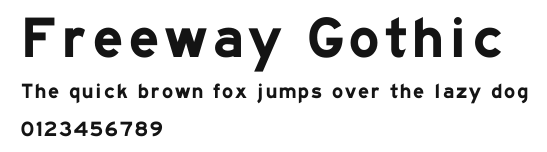
Freeway Gothic.ttf is a modern, elegant sans-serif font designed for ultimate readability and visual harmony. Perfect for branding, headlines, web design, and print materials.